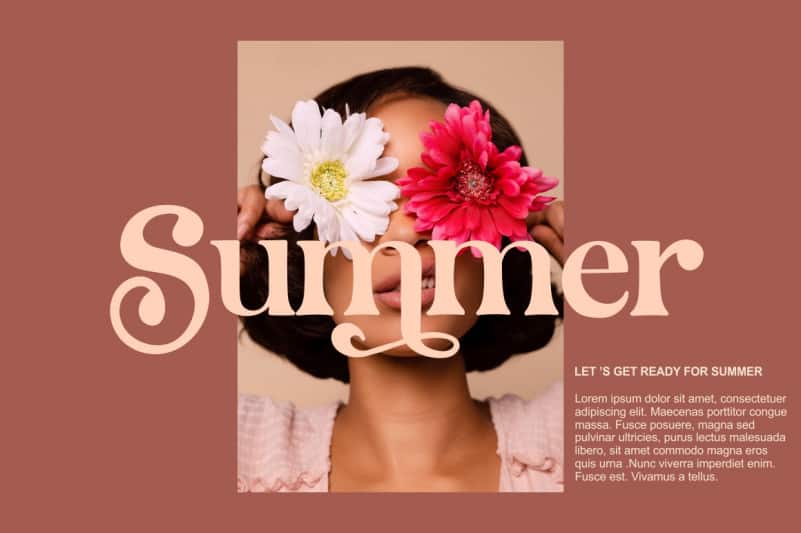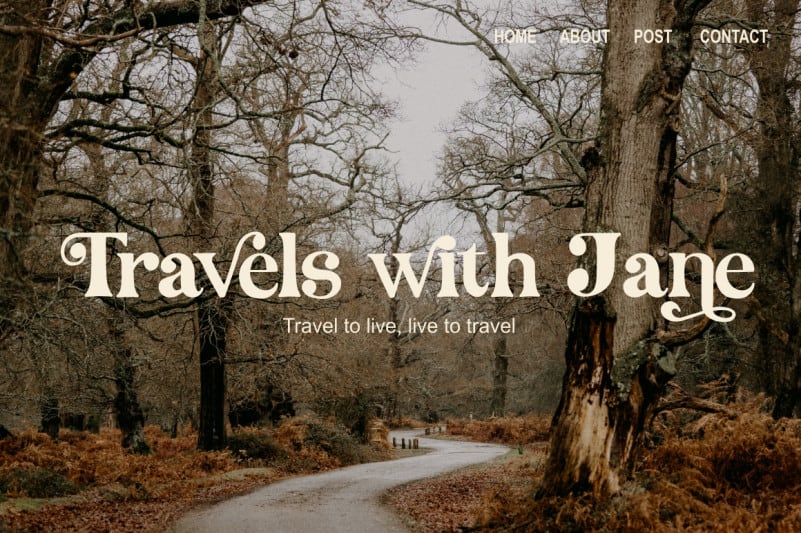
Medyson Serif Font
Introducing the elegant new Medyson Serif Font. A new handwritten serif font with tons of alternative characters and unique ligatures.
Medyson Serif Font includes full set of charming uppercase and lowercase international letters, numerals, a large range of punctuation and ligatures. All lowercase letters include beginning and ending swashes. It’s the perfect choice for stylish branding & logo projects, product packaging, handwritten quotes, editorial design invites, greetings and so much more!